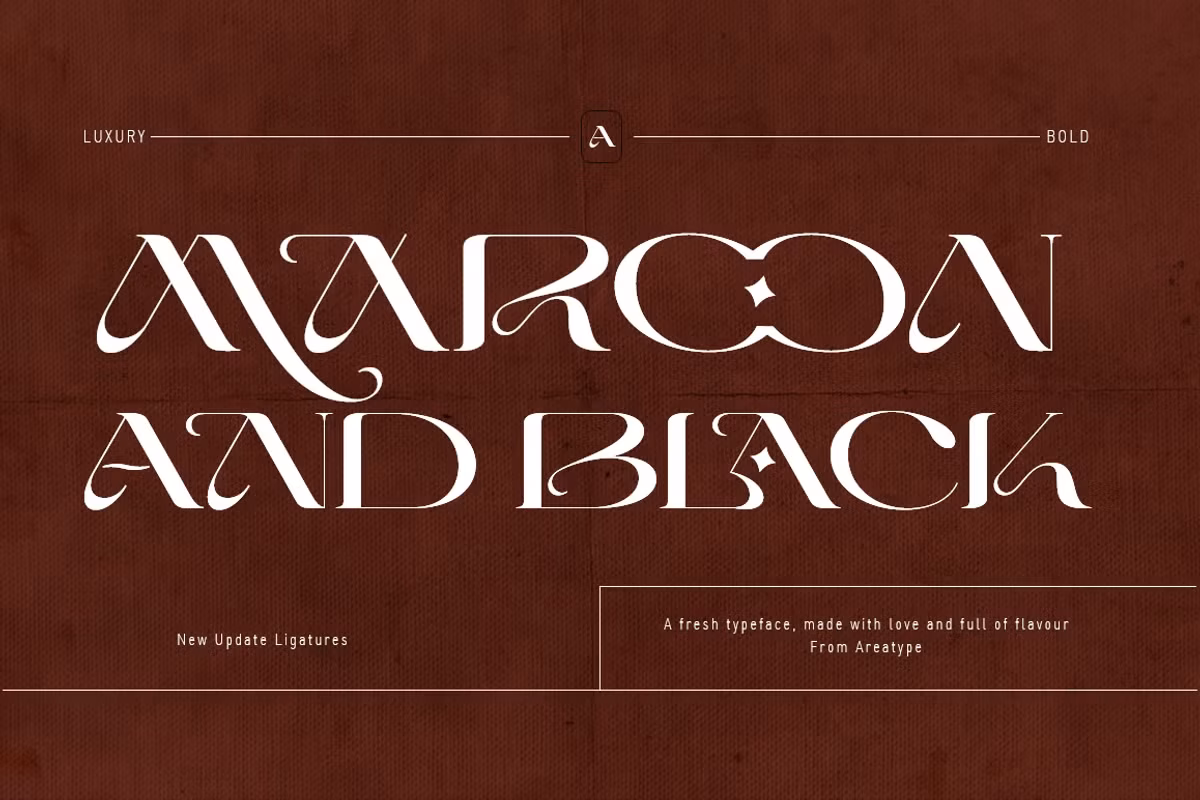
Maroon And Black Free Download
Maroon And Black Font Free Download
Maroon And Black Font Free Download is a bold and striking typeface that combines strong letterforms with a modern, edgy style. Featuring sharp angles and sleek curves, this font is perfect for creating impactful logos, posters, branding, and other designs that need to make a statement.
The font's clean lines and high contrast give it a powerful, contemporary feel, making it ideal for high-energy projects, tech designs, and anything that requires a bold and confident look. Whether you're designing for fashion, technology, or creative marketing, Maroon And Black brings strength and sophistication to your typography.